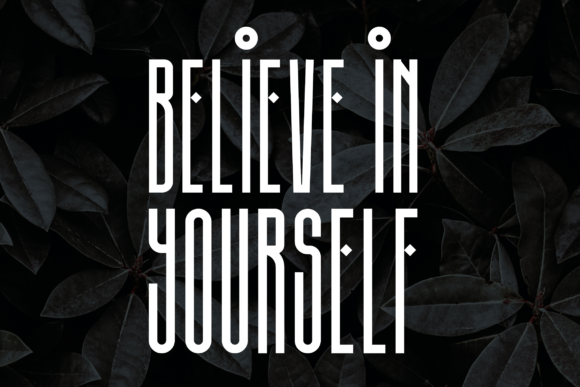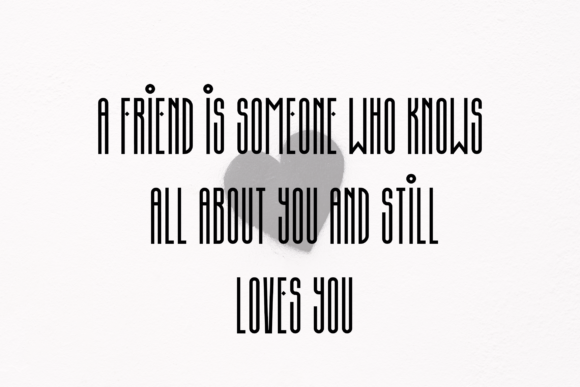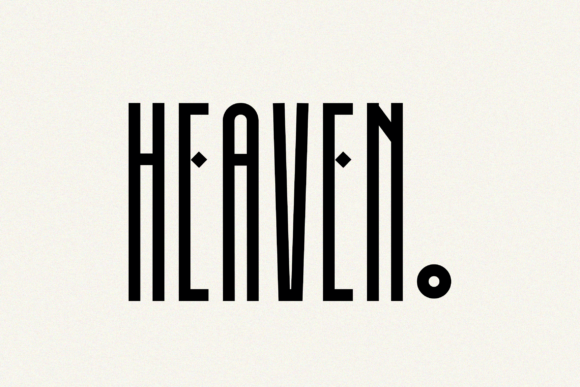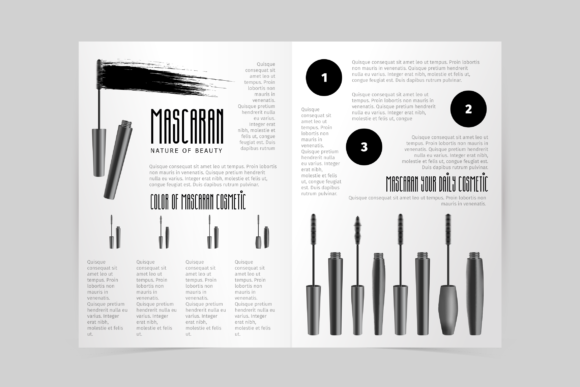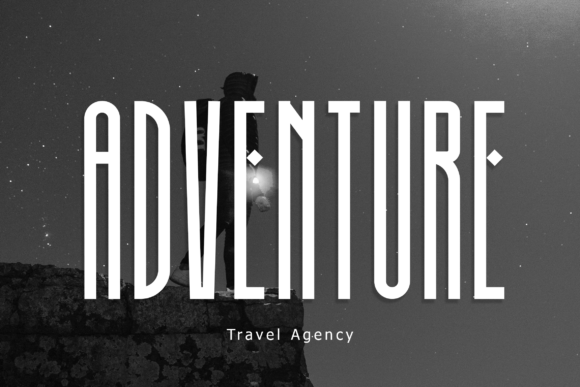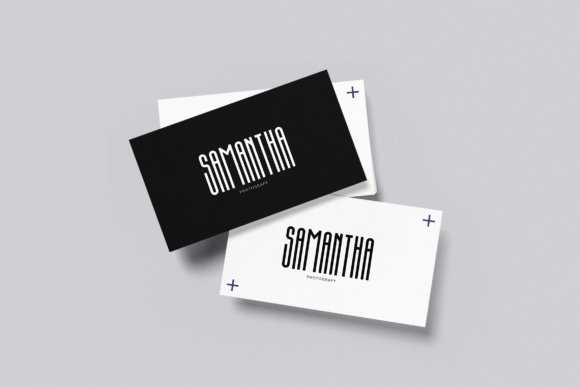
Discover the Modern Elegance of Discored Font
In the realm of typography, fonts play a pivotal role in conveying messages, evoking emotions, and creating lasting impressions. Among the myriad of fonts available to designers and crafters, the Discored Font stands out for its unique blend of modernity and elegance. This article aims to delve into the characteristics, applications, and benefits of using the Discored Font in your design projects.
Introduction to Discored Font
Discored is a fancy, contemporary sans serif font that has been gaining attention for its well-balanced weight distribution and tall lettering. What sets it apart is the meticulous adjustment of its alternates and ligatures, which add a touch of sophistication to any design. The font’s design ensures that it remains legible and aesthetically pleasing, making it a versatile choice for a wide range of projects.
Key Features of Discored Font
- Contemporary Sans Serif Design: The font boasts a modern sans serif design that fits well with current design trends. Its clean lines and simple shapes make it highly legible.
- Well-Balanced Weight Distribution: The weight of the font is evenly distributed, providing a harmonious look that is easy on the eyes.
- Tall Lettering: The tall and slender letters of the Discored Font make it stand out, adding an element of elegance to any text.
- Carefully Adjusted Alternates and Ligatures: The inclusion of carefully designed alternates and ligatures allows for a high degree of customization. These features can be used to add variety to your text, making it more engaging and dynamic.
Applications of Discored Font
The versatility of the Discored Font makes it suitable for a variety of applications. Here are some of the areas where this font can make a significant impact:
- Branding and Logotypes: The modern and elegant look of the Discored Font makes it an excellent choice for branding and logotypes. It can help create a sophisticated and contemporary image for a brand.
- Advertising and Marketing Materials: For advertisements, flyers, brochures, and other marketing materials, the Discored Font can be used to grab attention and convey a message of modernity and style.
- Packaging Design: The font’s unique characteristics make it a great choice for product packaging, especially for brands that want to stand out on the shelves.
- Digital Media: In the digital realm, the Discored Font can be used in website design, social media graphics, and digital advertising to create a modern and engaging user experience.
Benefits of Using Discored Font
Choosing the right font for a design project can significantly affect its outcome. Here are some benefits of incorporating the Discored Font into your designs:
- Enhances Readability: Despite its elegant and tall design, the Discored Font maintains high readability, ensuring that your message is conveyed clearly.
- Versatility: The font’s versatility allows it to be used across various platforms and design materials, providing consistency in your brand’s visual identity.
- Emotional Connection: The modern and sophisticated look of the Discored Font can help create an emotional connection with your audience, making your design more impactful.
The Discored Font is a powerful tool for designers and crafters looking to add a touch of modern elegance to their projects. Its unique combination of contemporary sans serif design, well-balanced weight distribution, and carefully adjusted alternates and ligatures makes it a standout choice. Whether you’re working on branding, advertising, packaging, or digital media, the Discored Font offers the versatility and aesthetic appeal needed to elevate your designs. By incorporating this font into your projects, you can enhance readability, ensure versatility, and create a lasting emotional connection with your audience.